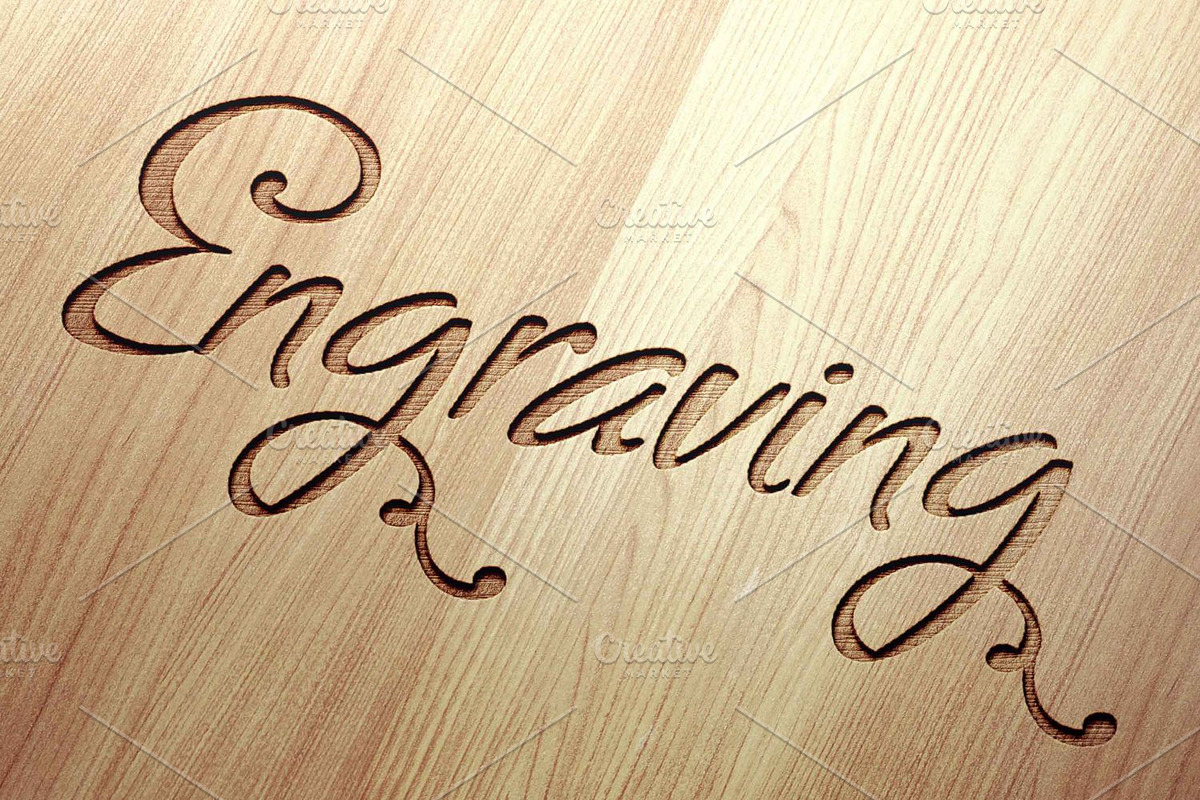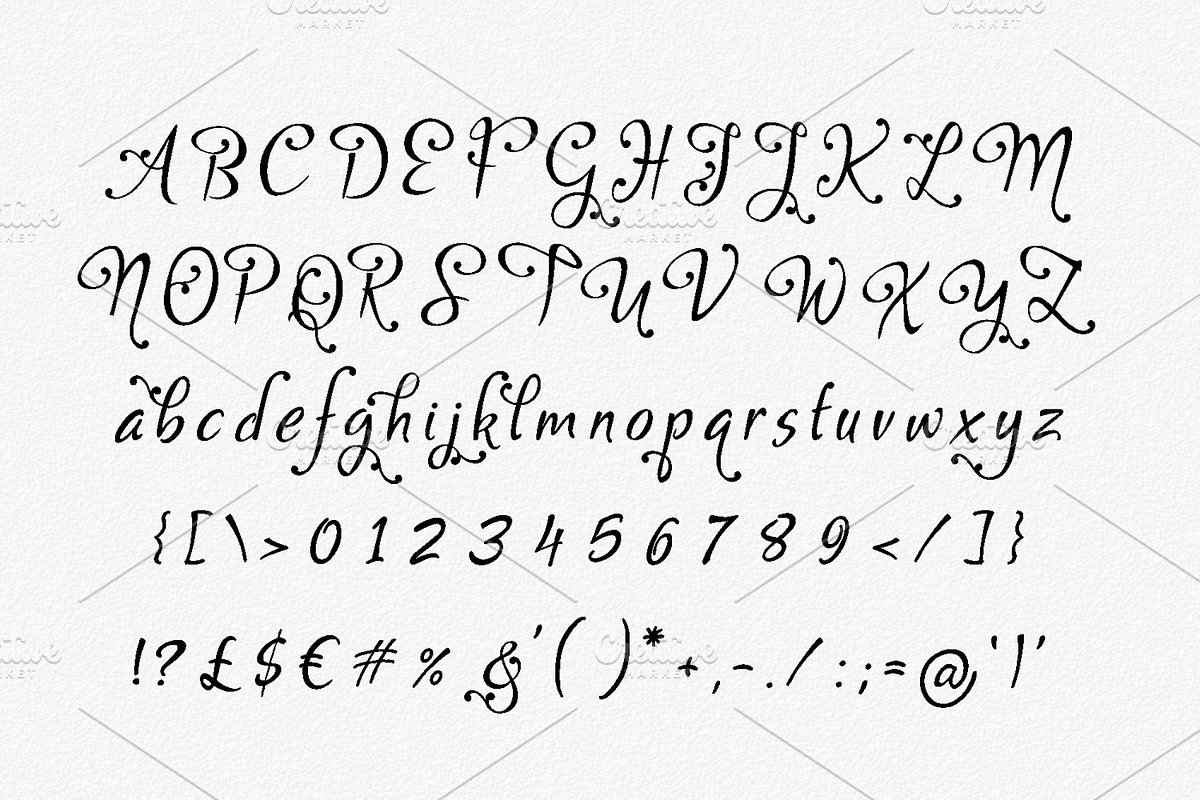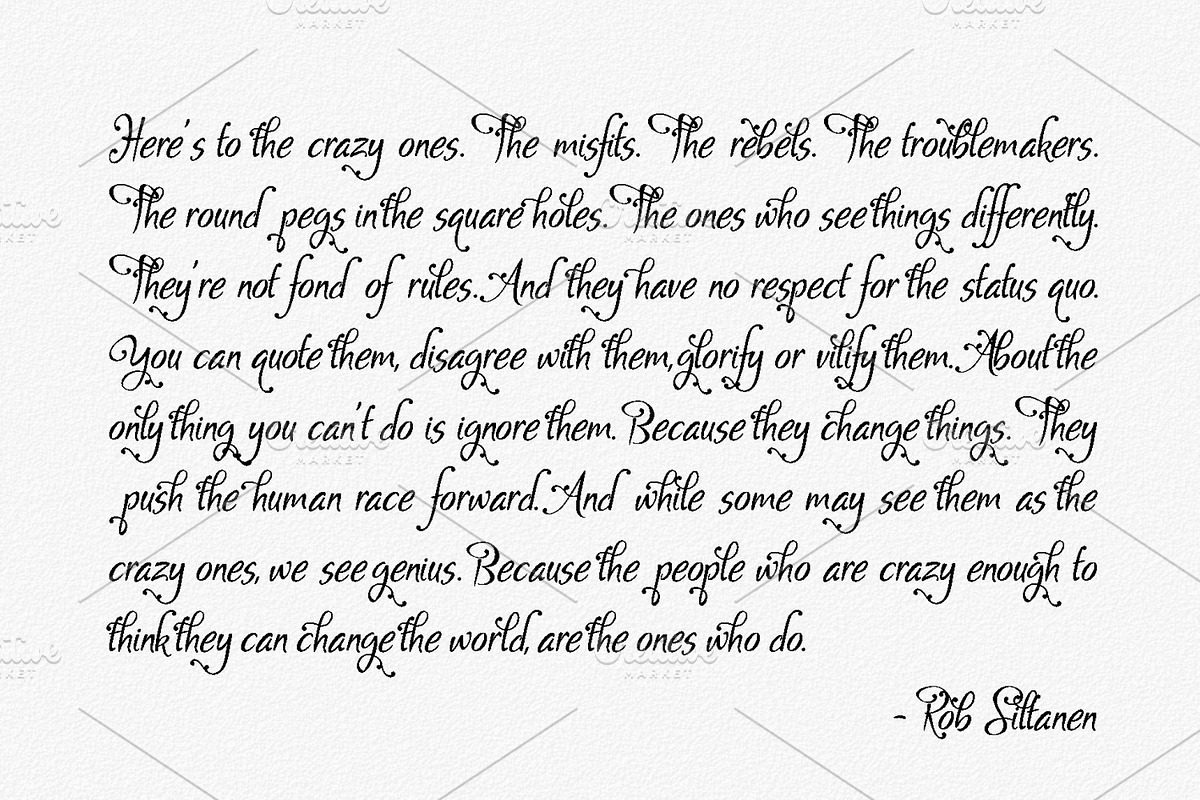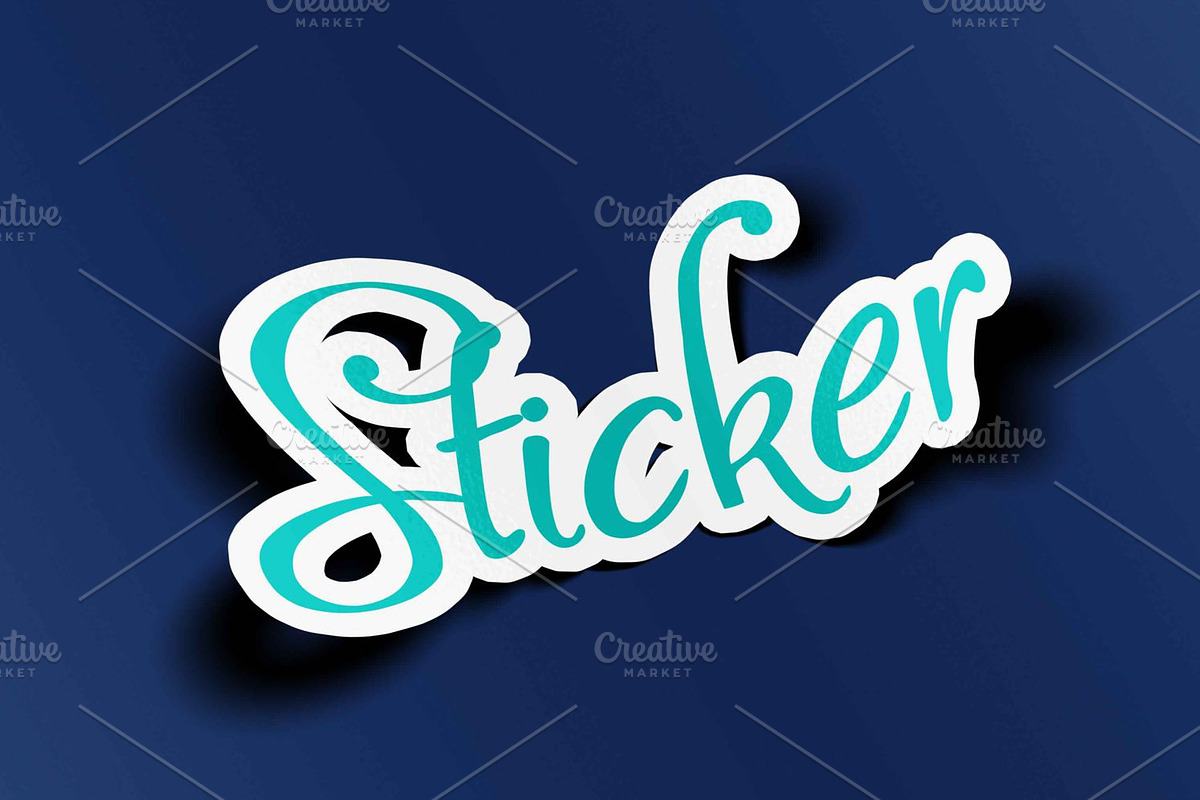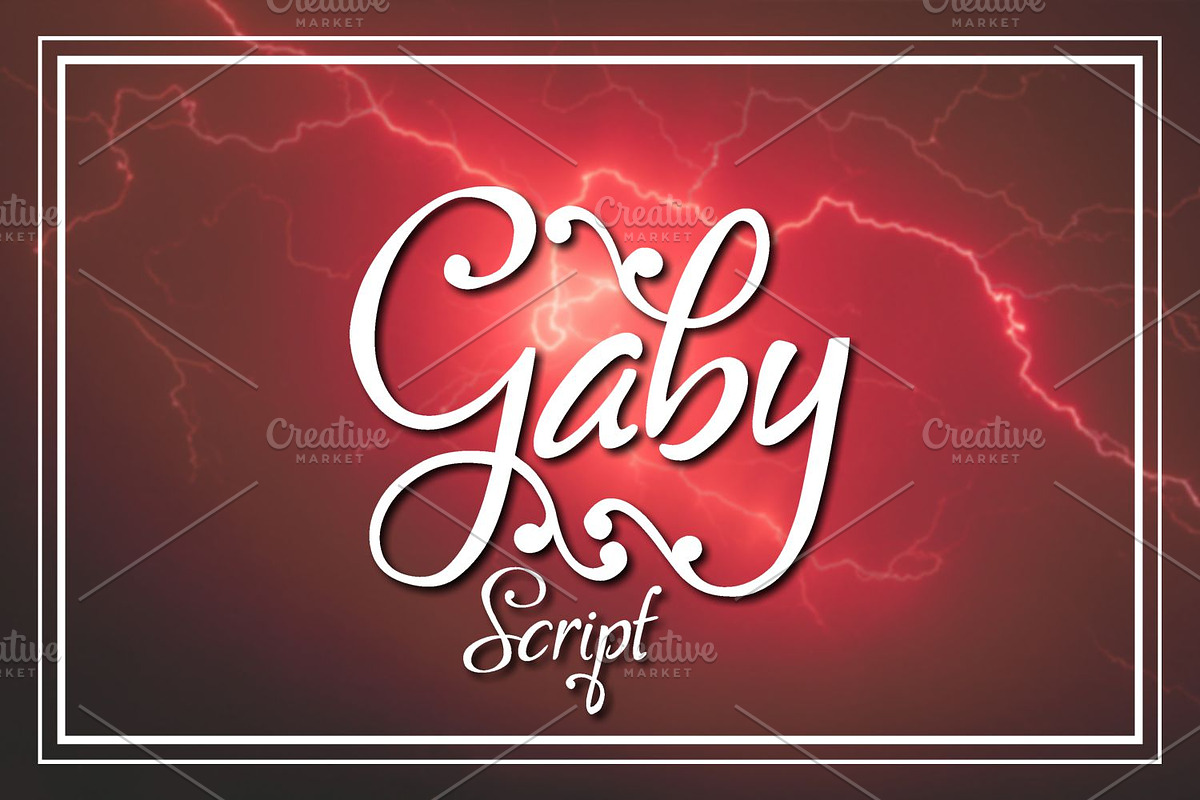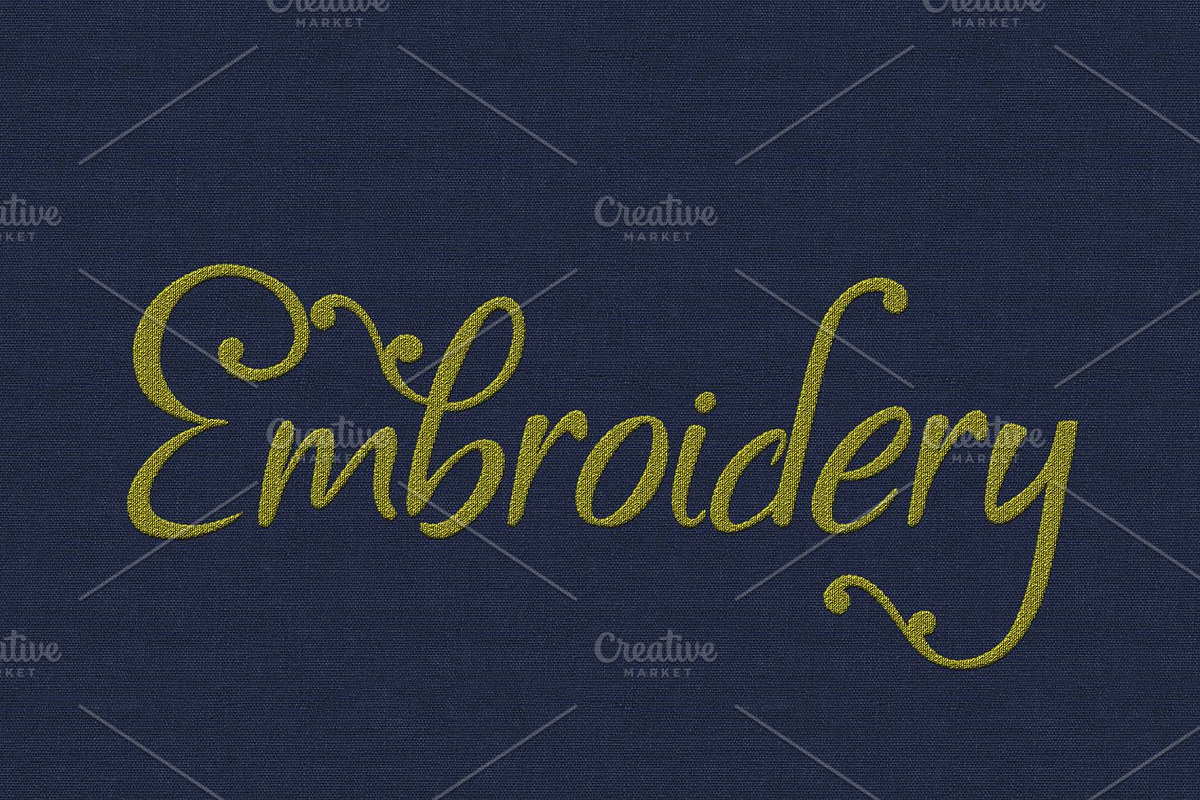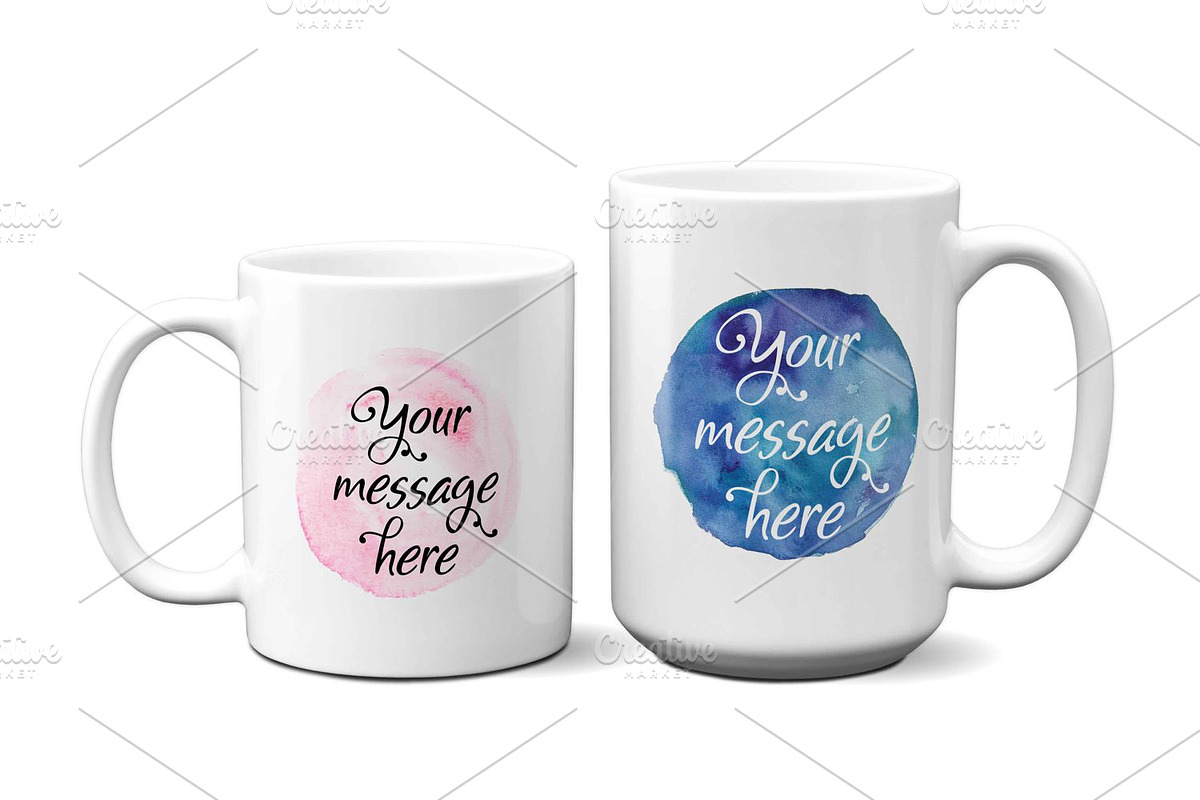
Gaby
Introducing Gaby, a fun and beautiful handwritten typeface. This script is embellished and engaging, making it suitable for logotype and display designs.
Gaby by Digital Typeface Studio fits naturally into Branding, posters, packaging, typography.